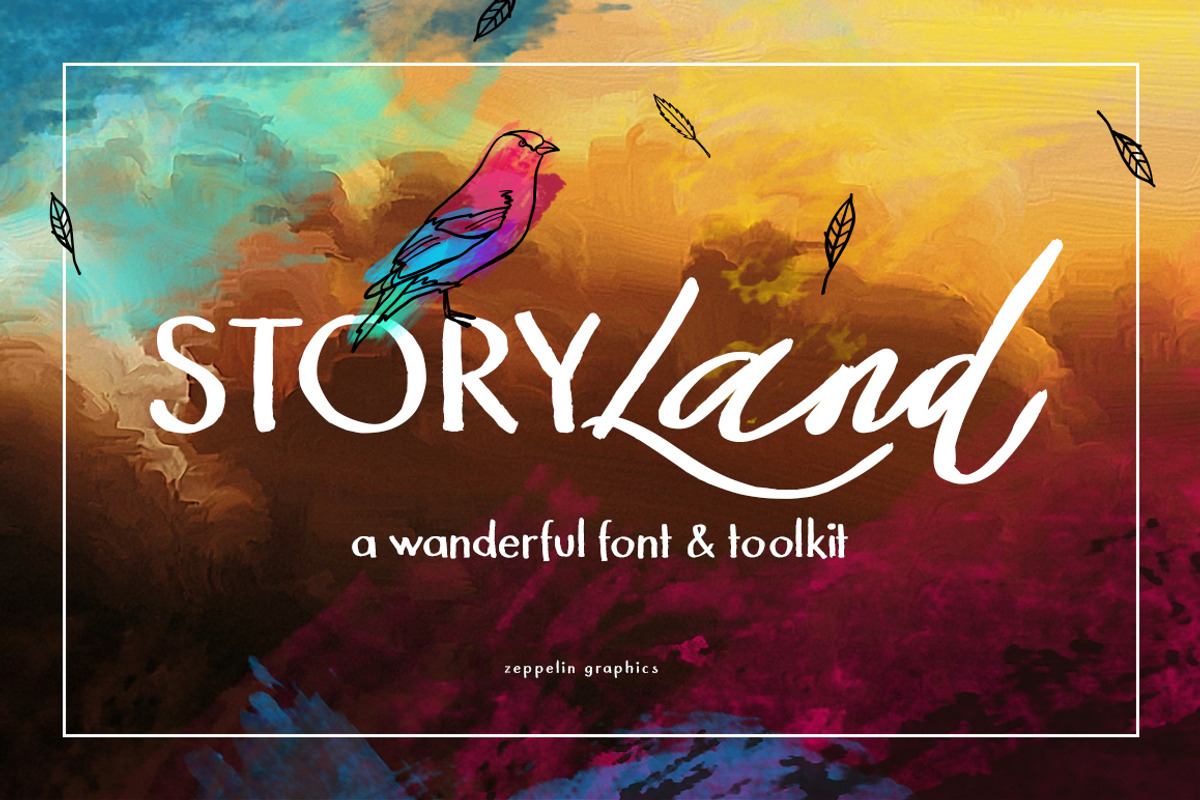
The Storyland Font & Toolkit Free Download is a versatile font collection designed to help you craft enchanting, whimsical designs with ease. Ideal for storybooks, children’s content, logos, invitations, and social media graphics, this toolkit provides a mix of fonts, graphic elements, and textures that complement each other for a cohesive design experience.
The Storyland Font features a playful, handwritten script style with fun flourishes, perfect for creating warm, welcoming designs. The accompanying toolkit includes additional graphic elements like decorative flourishes, ornaments, and other design assets to help you enhance your projects.
With uppercase and lowercase letters, numbers, punctuation, and multilingual support, the Storyland Font & Toolkit is perfect for a wide range of creative applications.